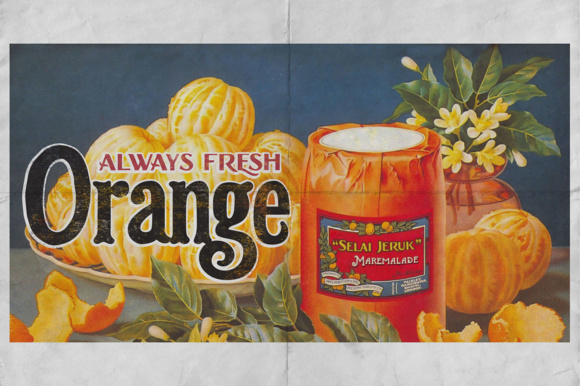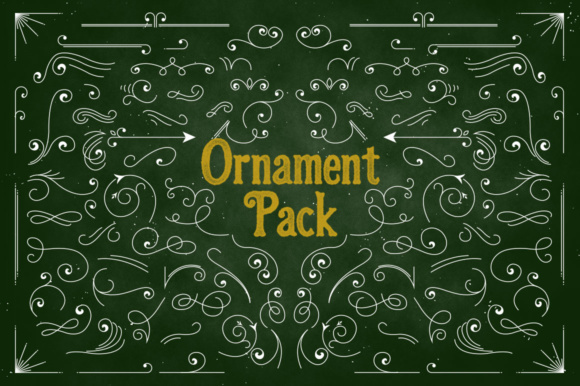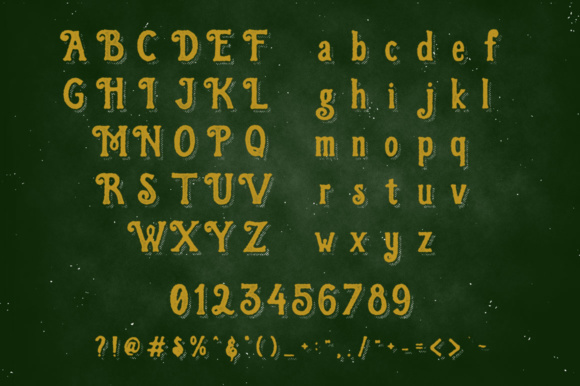
Magnifika is a gorgeous, vintage lettered font that gives an ode to the Victorian era. This font was specifically crafted for displays, but looks exceptional in body text as well. This download comes with bonus ornaments so you can make beautiful typographic projects.